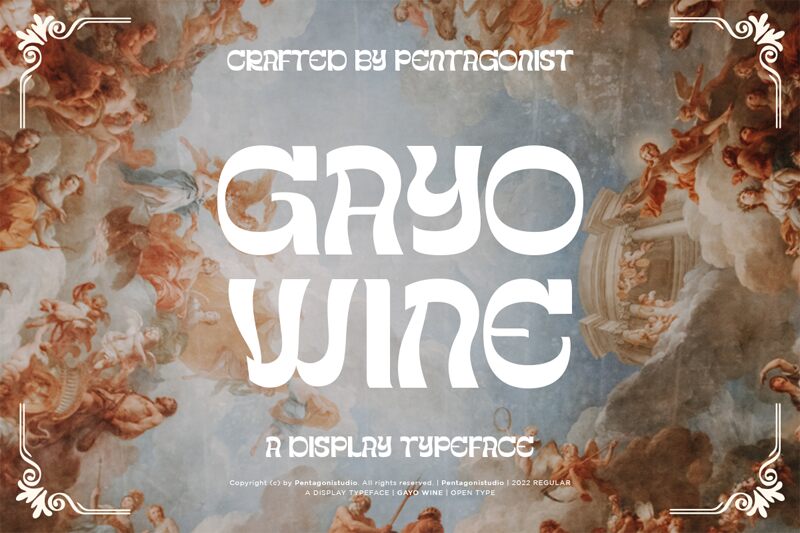
Gayo Wine, a captivating display font crafted by Pentagonistudio, exudes a captivating groovy aesthetic. The fluid, organic letterforms evoke a sense of movement and energy, effortlessly conveying a vibrant, retro-inspired ambiance. Intricate details and playful flourishes throughout the design lend Gayo Wine a distinctive personality, making it a standout choice for eye-catching headlines, logotypes, and branding applications.
Gayo Wine's versatility shines through its ability to add a touch of vintage charm to a variety of design projects. From editorial layouts and album covers to product packaging and event materials, this font's distinctive flair can elevate any creative endeavor, infusing it with a captivating and memorable visual presence.